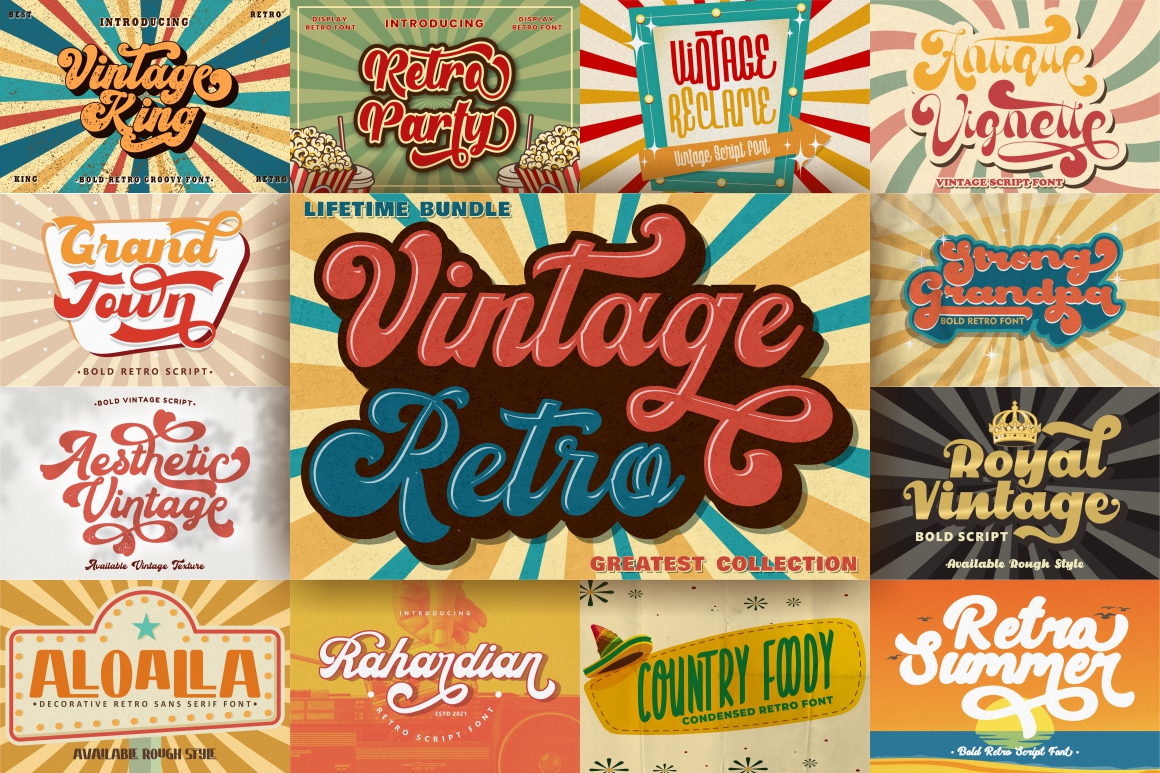
Top 10 Best Font Bundles for Branding and Advertising: Perfect for Print and Digital Media. Typography is a powerful tool in design, and when it comes to branding and advertising, the right font can make all the difference. Whether you’re creating print advertisements, social media content, or branding materials, typography helps communicate your brand’s message with precision and style. In this article, we’ll look at the top bundle fonts, perfect for both print and digital media. These font bundles are ideal for creating impactful branding and advertising that captures attention and communicates effectively with your audience.
1. The Retro and Vintage Font Bundle
This bundle offers a nostalgic mix of retro and vintage-inspired fonts, perfect for brands that want to evoke a sense of the past. With clean lines and classic styles, these fonts are ideal for print advertisements, branding, or social media posts that need a touch of nostalgia. This collection works well for industries like fashion, music, and lifestyle, where vintage design elements resonate strongly. However, it might not suit brands that focus on cutting-edge technology or minimalist aesthetics. The beauty of this bundle is its timeless appeal, making it perfect for brands targeting customers who value authenticity and history.
2. Vintage and Retro Font Bundles Vol. 2
The second volume of this vintage and retro font bundle expands on the original collection, offering even more variety in styles. It includes everything from bold, striking display fonts to elegant script styles, making it versatile for various design needs. Whether you’re working on advertising campaigns, product packaging, or brand identity, these fonts allow you to strike a balance between vintage nostalgia and contemporary design. However, their appeal may be niche, so they may not work for all target audiences, especially younger, tech-savvy consumers. Still, they are excellent for projects looking to create an authentic, retro feel while still appealing to modern sensibilities.
3. The Vintage Display Font Bundle
This collection focuses on display fonts with a vintage twist, designed to grab attention and make a bold statement. The fonts in this bundle are perfect for posters, large signage, and any project that needs strong, eye-catching typography. The boldness of these fonts makes them ideal for event promotions, festivals, and marketing materials where you want to stand out. On the downside, they may not work as well for smaller text or more delicate designs. These fonts are best used in high-visibility applications where you want the typography to be the focal point of the design.
4. The Modern Sans and Serif Font Bundle
Offering a mix of sans-serif and serif fonts, this bundle is a fantastic option for modern, clean, and professional designs. The sans-serif fonts lend themselves well to minimalist design, while the serif fonts provide a more traditional and formal touch. This versatility makes it suitable for a wide range of projects, including websites, brochures, corporate materials, and more. The only downside is that while it’s highly versatile, it may lack the creative flair that some projects demand. However, for businesses or brands that value professionalism and clarity, this bundle offers excellent value.
5. Serif and Sans-Serif Font Bundle
This bundle provides a balanced selection of serif and sans-serif fonts, offering endless possibilities for both formal and informal design needs. Whether you’re designing corporate branding, advertisements, or website content, the combination of these two styles ensures flexibility and cohesiveness. The clean lines of the sans-serif fonts and the elegance of the serif fonts make this bundle perfect for creating a unified brand aesthetic. However, it may lack the boldness or uniqueness that more creative or niche projects need. If you’re looking for flexibility with a professional edge, this bundle is a solid choice.
6. Stylish Modern Script Font Bundle
For designers who need a touch of elegance and flair, this modern script font bundle offers stylish, handwritten-like fonts that are perfect for personal and luxury branding. These fonts are ideal for invitations, high-end product packaging, or fashion-related designs. The downside is that script fonts can sometimes be hard to read, especially in larger body text. Nevertheless, they provide a personal and sophisticated feel, making them ideal for projects that require elegance and creativity. They are best used in short text elements such as logos, headlines, and invitations, where legibility is less of a concern.
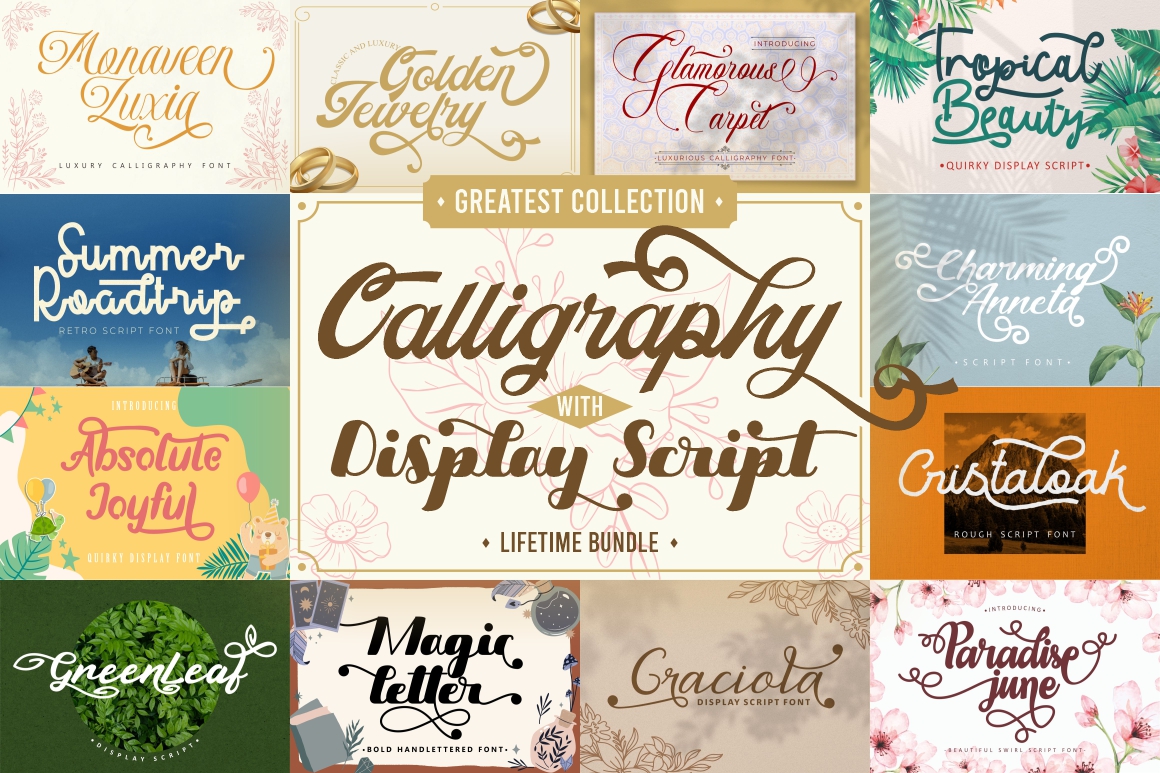
7. Calligraphy and Display Script Font Bundle
Combining beautiful calligraphy with bold display scripts, this font bundle is perfect for designs that need to convey both sophistication and impact. Whether it’s for branding, wedding invitations, or advertising campaigns, these fonts add an artistic touch to any project. However, they may not work for all types of content, particularly where clarity and legibility are paramount. Despite this, for high-end, creative projects, these fonts are ideal for adding personality and style. This bundle is perfect for brands that want to make an emotional connection with their audience through elegant, handwritten typography.
8. Romantic Love Font Bundles
Romantic fonts are essential for designing materials related to weddings, love-themed branding, and Valentine’s Day promotions. This font bundle offers beautiful, handwritten script fonts that are perfect for invitations, greeting cards, and personal branding. While they work exceptionally well for romantic events, these fonts have limited use in other industries. Their niche appeal can be a strength for brands targeting those in love or celebrating relationships.
9. Dark Horror Font Bundles
For projects that demand a spine-chilling, eerie vibe, the Dark Horror Font Bundle is the perfect choice. Designed for horror-themed advertisements, movie posters, or Halloween campaigns, these fonts create an atmosphere of fear and suspense. They are ideal for the entertainment industry, particularly within horror films, haunted houses, and related promotions. The downside is their limited application outside of the horror genre, so they won’t work for mainstream brands. If you’re in the horror or entertainment industry, though, these fonts are a must-have for capturing the dark, mysterious mood your projects need.